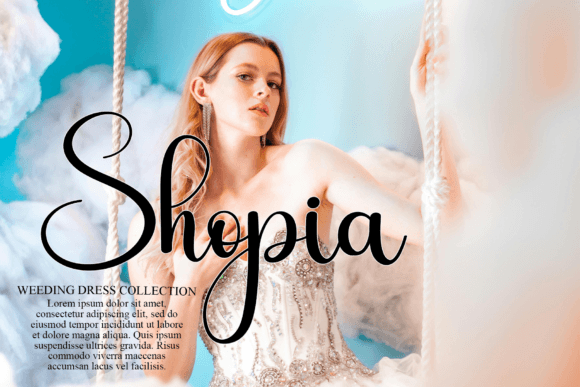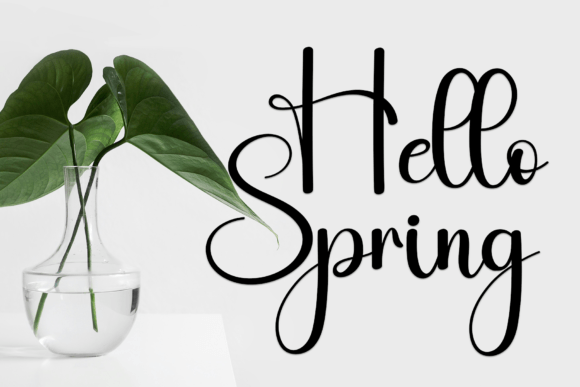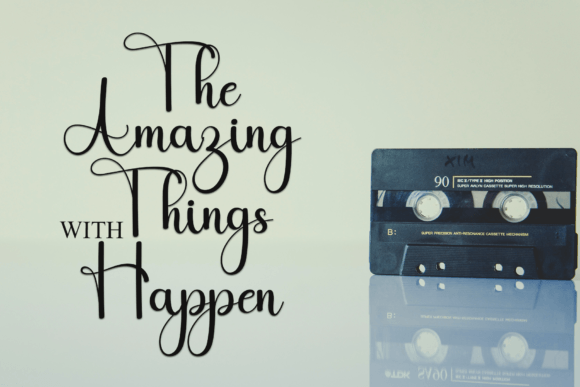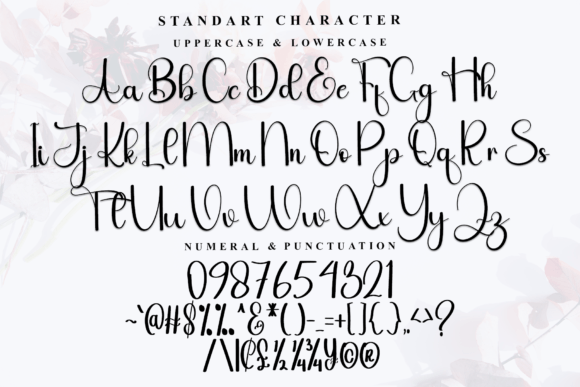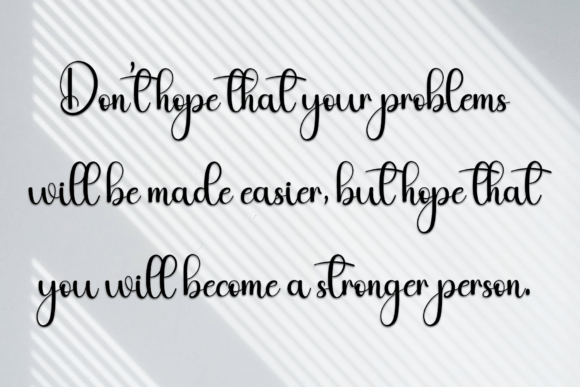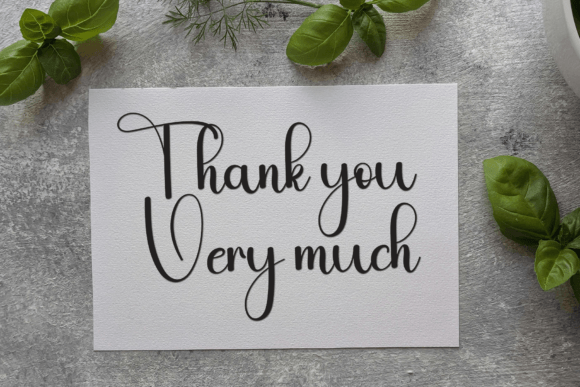
Dancing Font: Elevate Your Designs with Elegance and Flair
Are you a designer or crafter looking for a font that can add a touch of sophistication and whimsy to your creative projects? Look no further than the Dancing Font, a delicate, elegant, and flowing handwritten font that’s sure to bring your designs to life.
What Makes Dancing Font So Special?
Dancing Font is a beautifully crafted handwritten font that boasts well-balanced characters, making it incredibly versatile and suitable for a wide range of designs. Whether you’re working on a logo, invitation, packaging, or social media graphics, this font is sure to make a lasting impression.
Key Features of Dancing Font
- Beautiful and well-balanced characters: Each character in the Dancing Font is carefully designed to be harmonious and visually appealing, ensuring that your text looks stunning and professional.
- PUA coded for easy access to glyphs and ligatures: The Dancing Font is PUA (Private Use Area) coded, which means you can easily access all the amazing glyphs and ligatures without any hassle. This feature allows you to add an extra layer of creativity to your designs.
- Wide pool of design compatibility: The Dancing Font is incredibly versatile and can be paired with a variety of design styles, from minimalist to elaborate. Whether you’re creating a modern brand identity or a vintage-inspired project, this font will complement your design with ease.
Tips and Tricks for Getting the Most Out of Dancing Font
- Experiment with different colors and textures: The Dancing Font looks stunning in a variety of colors and textures. Try pairing it with bold colors, subtle gradients, or even metallic finishes to add depth and interest to your design.
- Mix and match with other fonts: Don’t be afraid to combine the Dancing Font with other fonts to create a unique and eye-catching design. The elegant and flowing script pairs well with sans-serif fonts, and even other script fonts.
- Use it for headlines and titles: The Dancing Font is perfect for headlines and titles, where you want to make a bold statement. Use it to grab attention and draw the reader in.
Who Can Benefit from Dancing Font?
The Dancing Font is perfect for a variety of designers and crafters, including:
- Graphic designers: Whether you’re working on a logo, brochure, or social media graphics, the Dancing Font is a great addition to your design toolkit.
- Crafters and DIY enthusiasts: If you enjoy making things like invitations, cards, or scrapbooking pages, the Dancing Font is a great way to add a personal touch to your creations.
- Wedding planners and event coordinators: The Dancing Font is perfect for creating beautiful wedding invitations, programs, and other event materials.